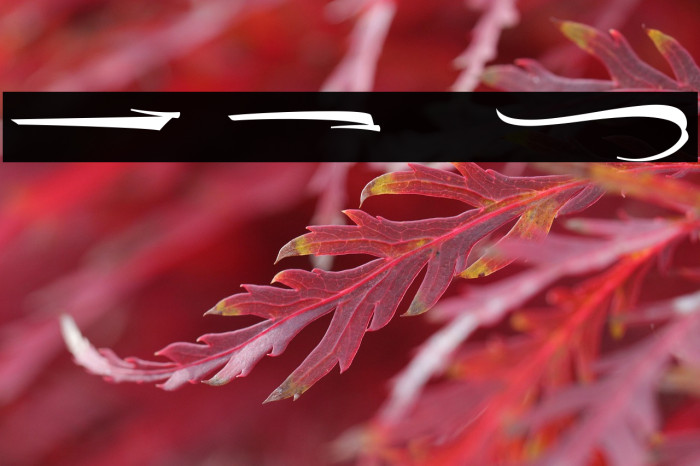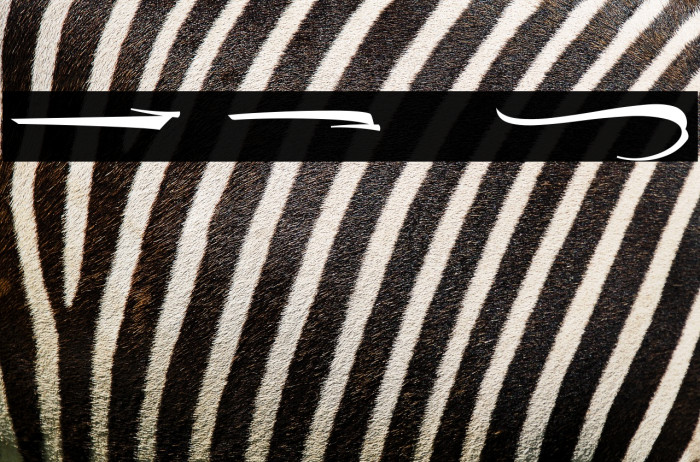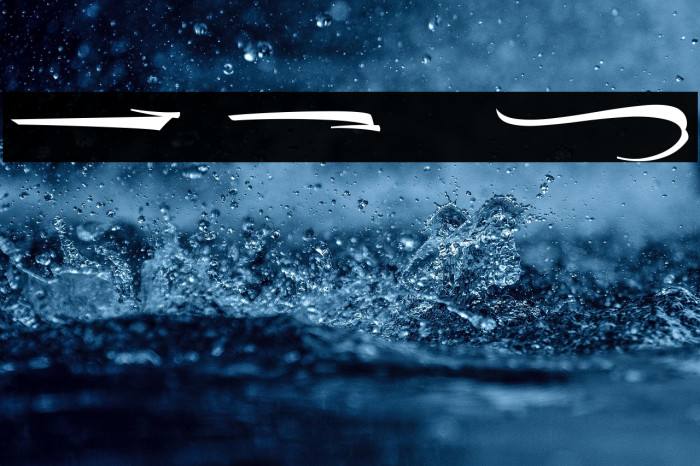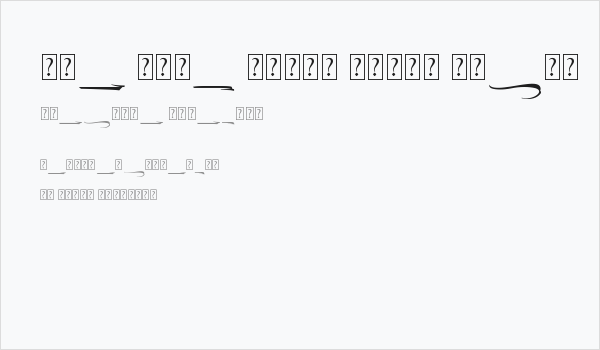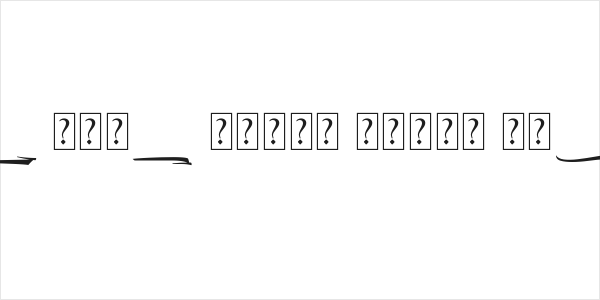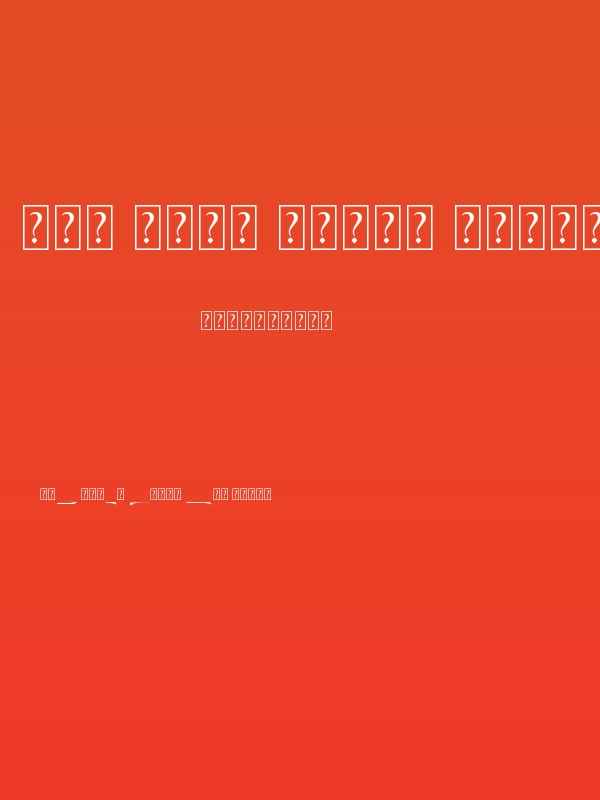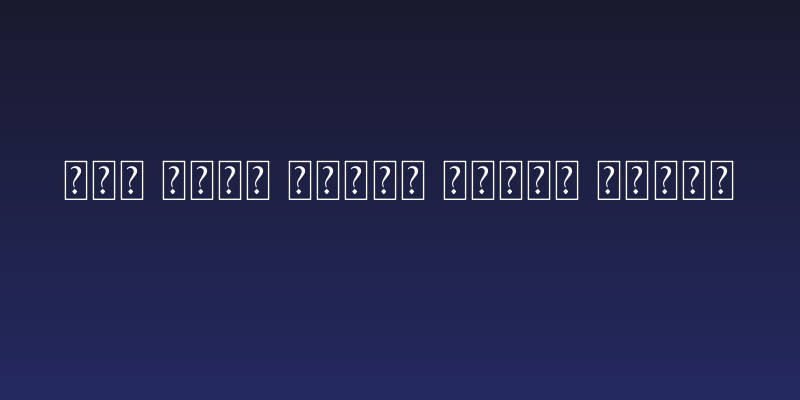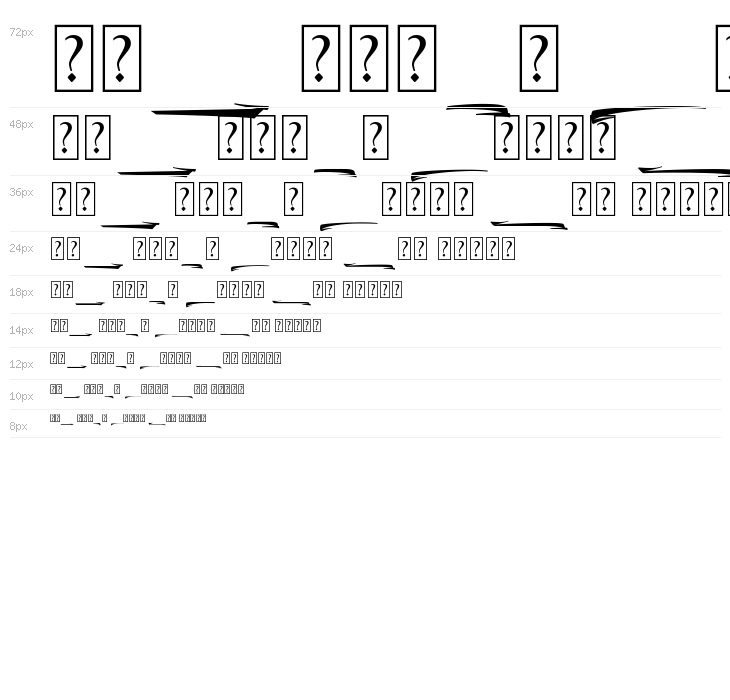
The Lord Night Thorn Swash Font
The Lord Night Thorn Swash Description
This font features an elaborate and decorative style, characterized by its intricate swashes and flourishes. The design is highly ornamental, with each character exhibiting unique and artistic extensions that create a sense of elegance and sophistication. The strokes are fluid and dynamic, suggesting a sense of movement and grace. This font is particularly suited for creative and artistic projects where a touch of luxury and refinement is desired. Its distinctive appearance makes it ideal for use in branding, invitations, and other applications where a dramatic and eye-catching typeface is needed.
| Use Case | Logos, Invitations, Headlines |
| Proposed Projects | Ideal for wedding invitations, luxury branding, artistic posters, and decorative headings. |